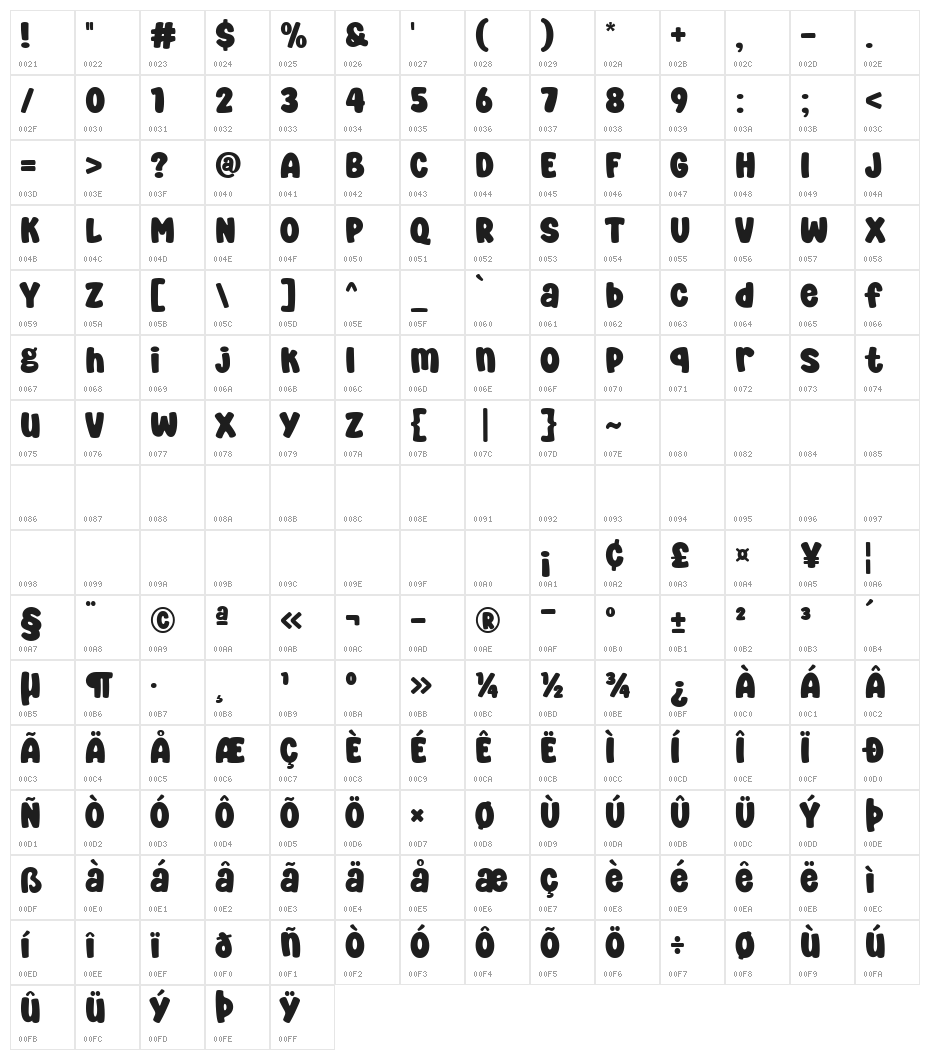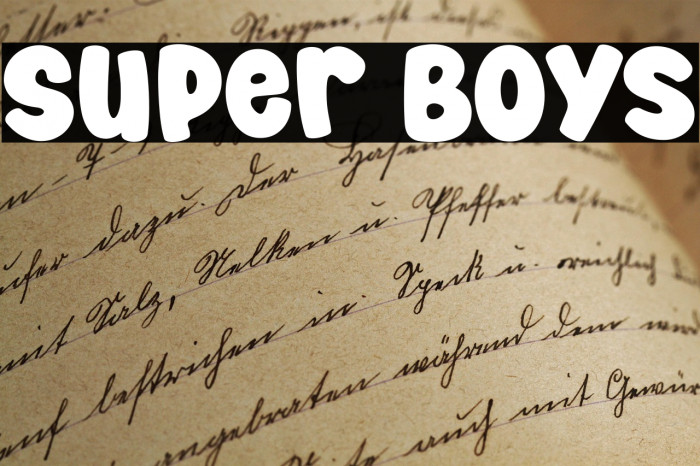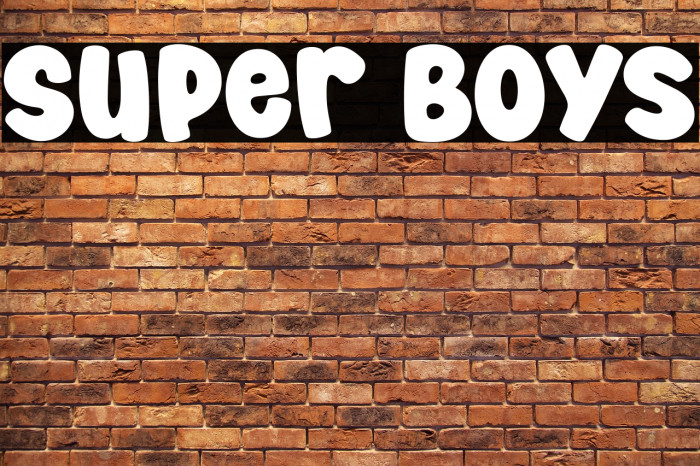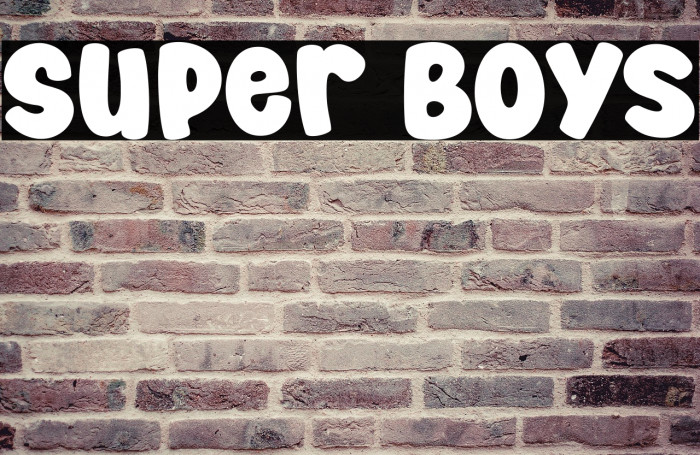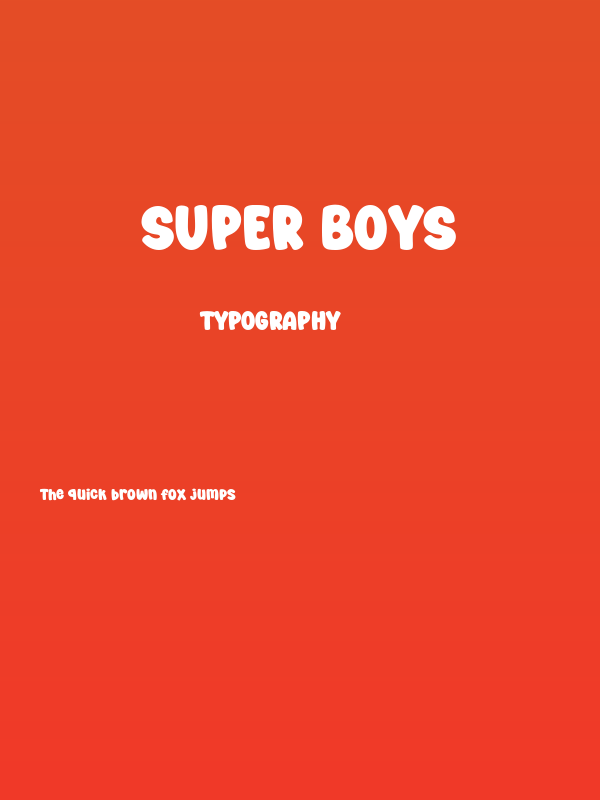
Super Boys Font
Super Boys Description
This playful and bold font features rounded, bubbly characters that exude a sense of fun and whimsy. The letters are thick and uniform, with a consistent stroke width that gives them a solid, substantial appearance. The rounded edges and lack of sharp angles contribute to a friendly and approachable feel, making it ideal for informal and lighthearted projects. The font includes a full set of uppercase and lowercase letters, numbers, and a variety of special characters, ensuring versatility in design applications. Its unique style is reminiscent of comic book lettering, adding a touch of nostalgia and charm.
| Proposed Projects | Perfect for children's books, comic strips, playful branding, and party invitations. |